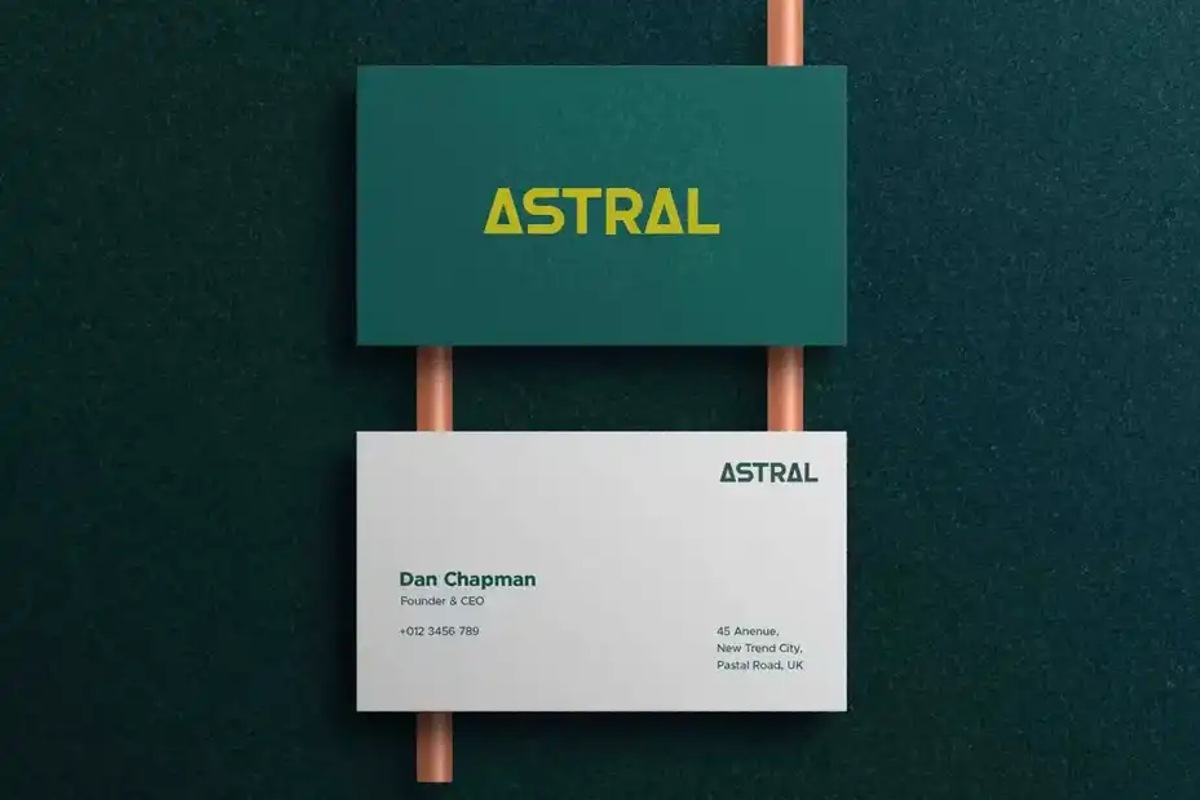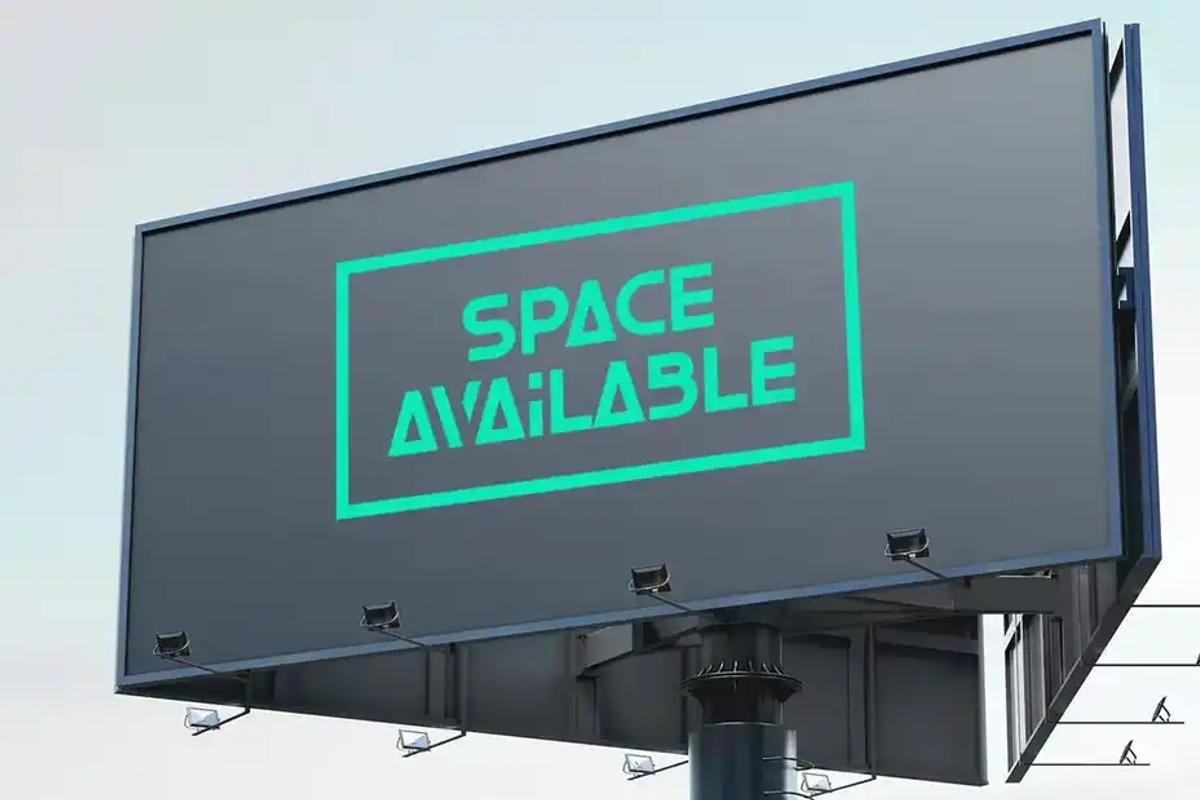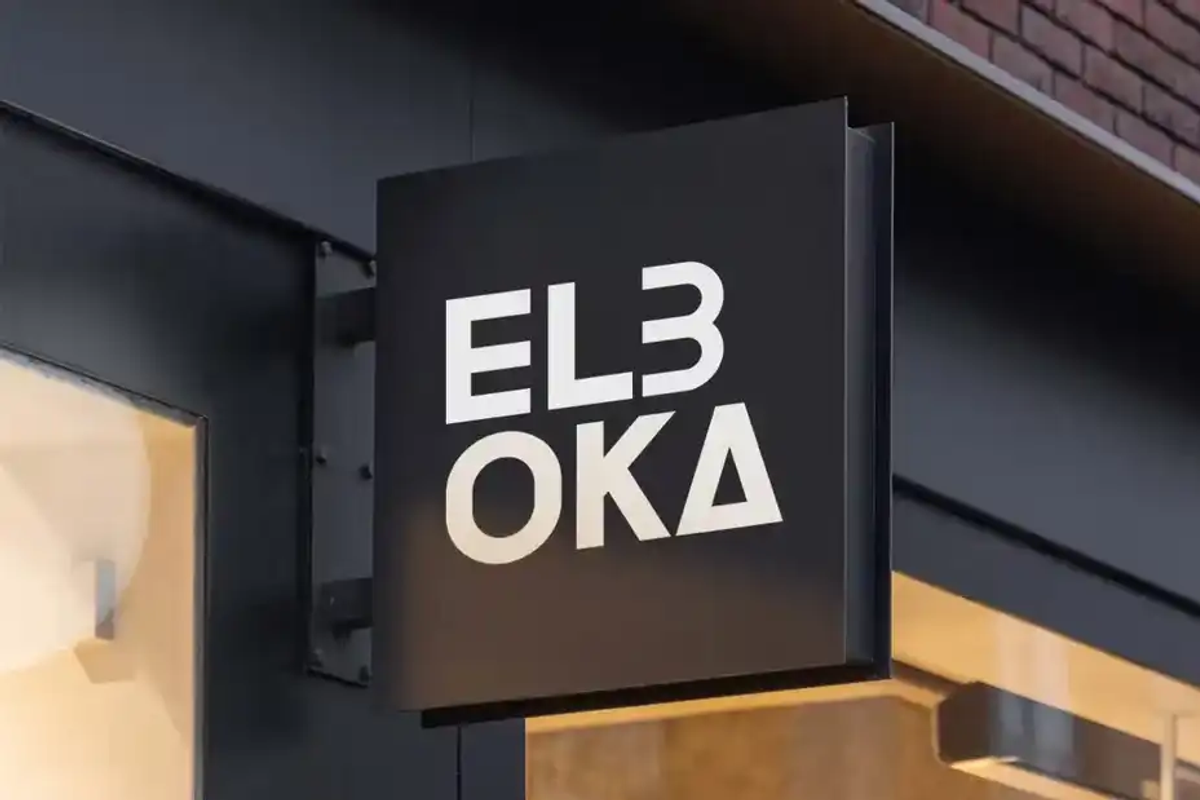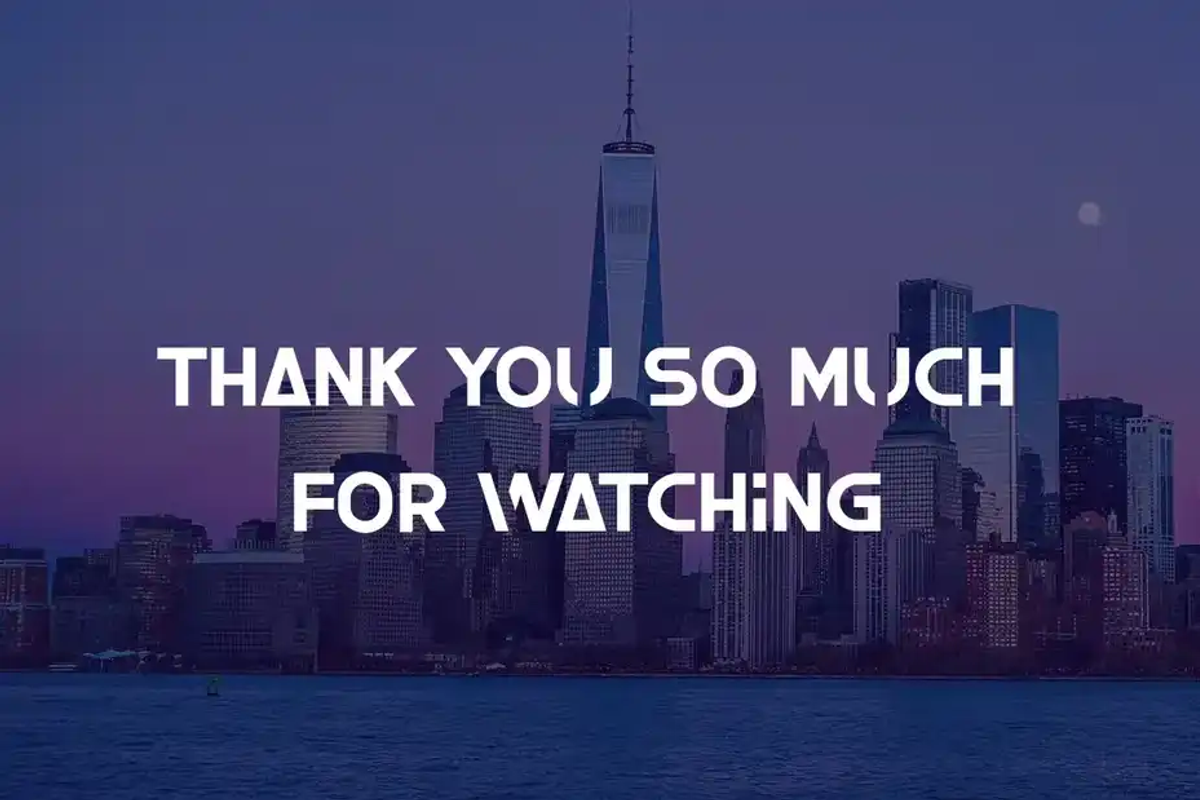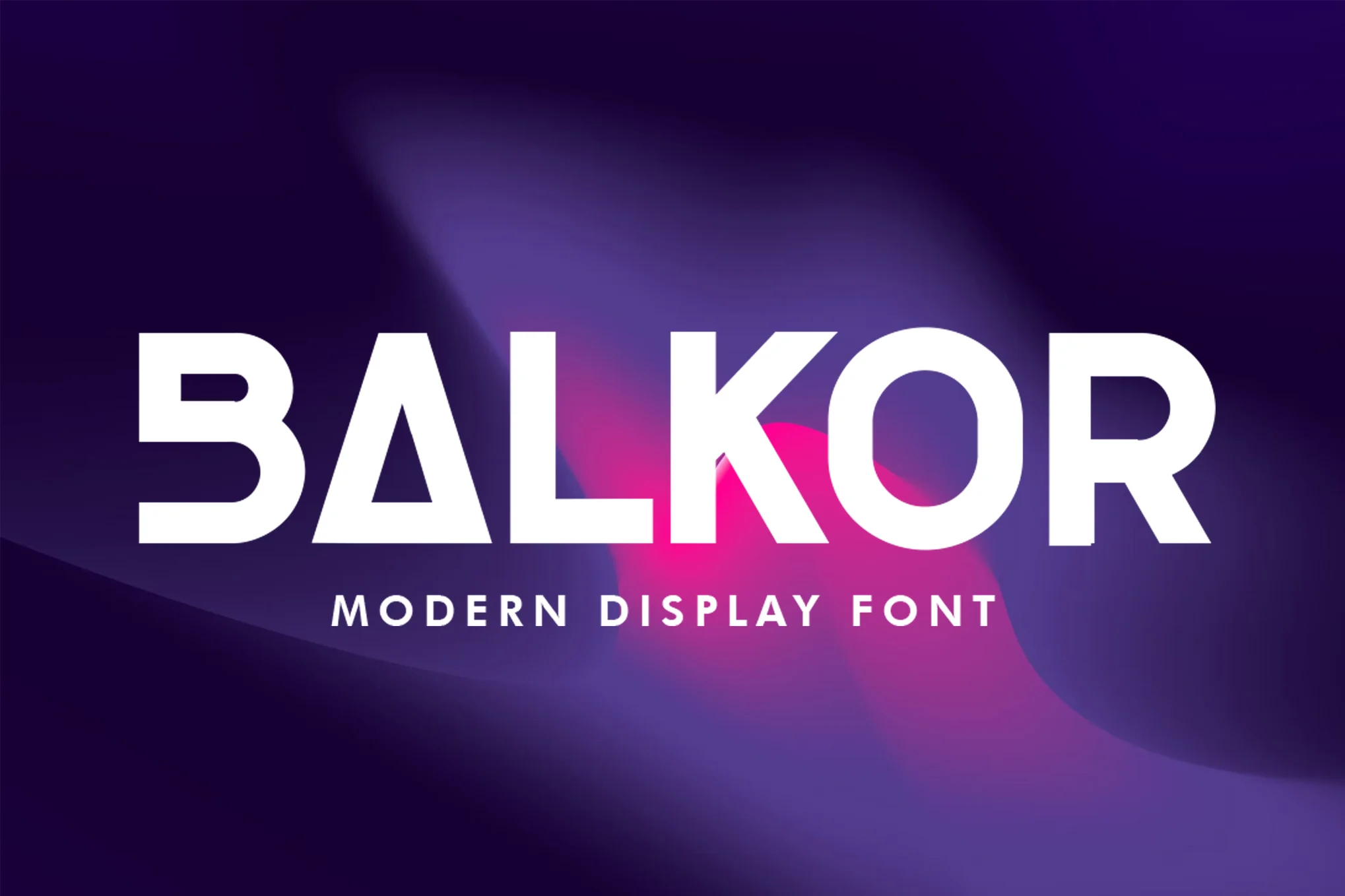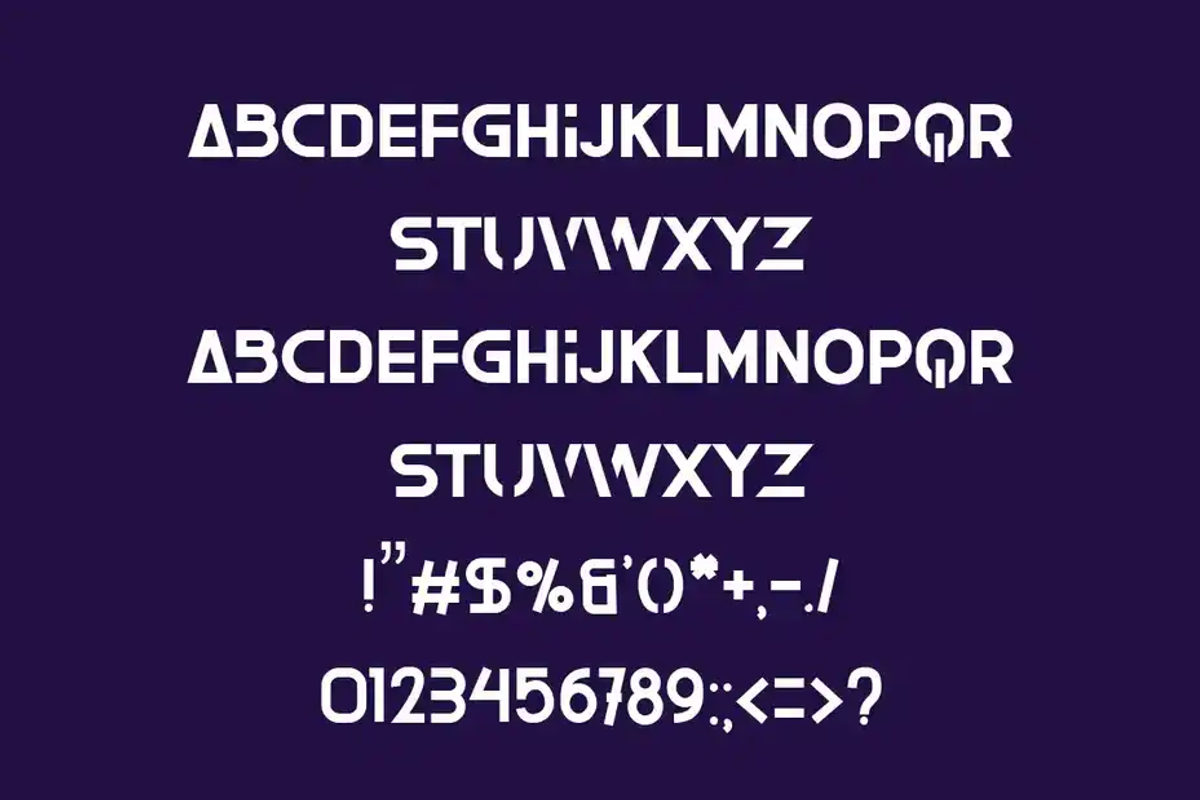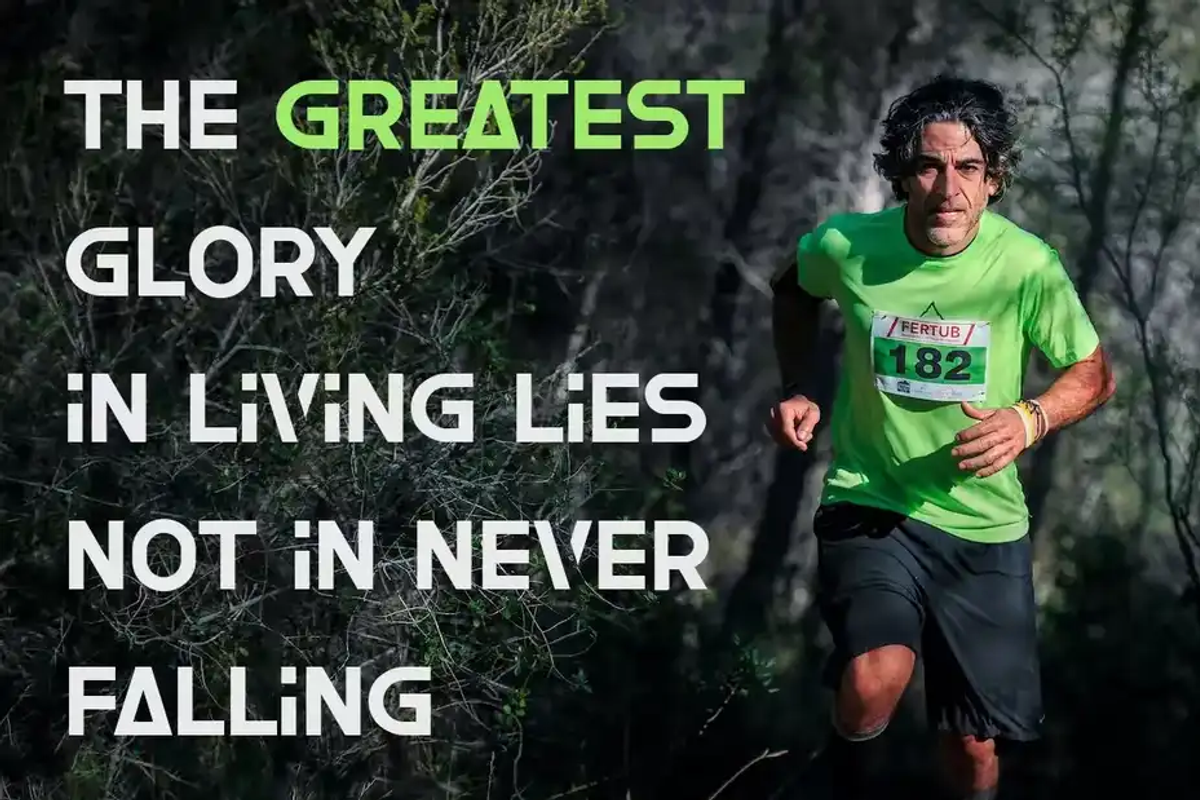
Balkor - Modern Font
Description
Balkor font is a sans based font with unique lowercase that will make your design looks futuristic and modern. You can use this font for any purpose, especially to make logotype.